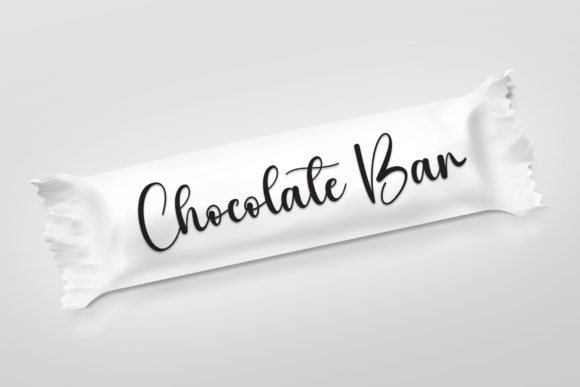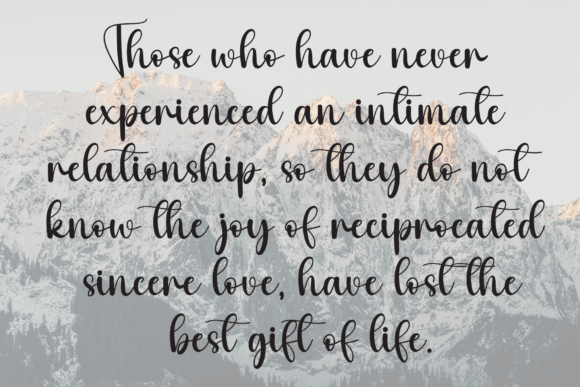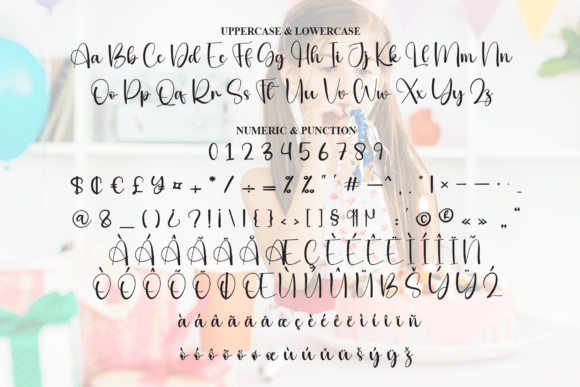
The Perfect Script Font for Making Every Moment Magical
Have you ever found yourself stuck on a design project, struggling to convey the right emotions and atmosphere? For me, that moment usually comes when I’m brainstorming ideas for a special occasion – like a wedding or a milestone birthday. It’s in those moments that I wish I had a secret ingredient to make my designs truly shine.
Enter the Birthday Cute Font, a stunning script font that’s sure to elevate any design project. With its elegant curves and beautiful swashes, this font is perfect for creating romantic and luxurious visuals. Whether you’re designing wedding invitations, branding projects, or social media graphics, the Birthday Cute Font is a valuable addition to any designer’s toolkit.
What sets this font apart is its ability to add a touch of sophistication and refinement to any design. Its decorative alternates and stylish curves make every word look effortlessly custom-made, making it a must-have for any designer looking to take their designs to the next level.
Birthday Cute Font Key Features
- Font Family: Birthday Cute Font
- Unique Characteristics: Whimsical and playful design, perfect for birthday invitations, party decorations, and other festive occasions
Birthday Cute Font Review
I’ve had the chance to work with the Birthday Cute Font, and I must say it’s a sweet addition to any design project. Here’s what I think:
- Cute and playful style – perfect for birthday cards, party invitations, or any celebratory design.
- Variety of font styles and sizes – allows for flexibility in your design and easy customization.
- High-quality glyphs – clear and crisp, making it easy to read and use in a design.
- Limited character set – may not be suitable for designs requiring complex text or a wide range of languages.
- No bold or italic styles for some characters – can make it difficult to create emphasis or contrast in a design.
- No support for ligatures or contextual alternates – can lead to inconsistent typography and a less polished look.
Overall, I think the Birthday Cute Font is a great choice for lighthearted designs that need a playful touch. While it may have some limitations, its cute style and high-quality glyphs make it a solid addition to any designer’s toolkit.
Use the Birthday Cute Font in combination with other decorative elements, such as confetti or balloons, to create a festive atmosphere.
Experiment with different font sizes and colors to create visual interest and emphasize important text.
Use the font to create a consistent brand identity, such as using it for all birthday-themed designs.
Birthday invitations and greeting cards
Party decorations and banners
Birthday-themed social media posts and graphics
Custom birthday gifts and decorations
Alternatives to Birthday Cute Font for Designers
Creamy Script
Creamy Script is a modern, elegant script font that is perfect for creating a soft, romantic atmosphere. It’s ideal for wedding invitations, baby shower invitations, and other special occasions. Compared to Birthday Cute Font, Creamy Script has a more sophisticated and refined look, making it suitable for a wider range of designs.
Lobster is a fun, casual script font that is great for creating a playful and lighthearted atmosphere. It’s perfect for birthday invitations, party invitations, and other social events. Compared to Birthday Cute Font, Lobster has a more relaxed and informal feel, making it ideal for casual designs.
Great Vibes is a beautiful, handwritten script font that is perfect for creating a warm and inviting atmosphere. It’s ideal for wedding invitations, anniversary invitations, and other special occasions. Compared to Birthday Cute Font, Great Vibes has a more elegant and sophisticated look, making it suitable for a wide range of designs.